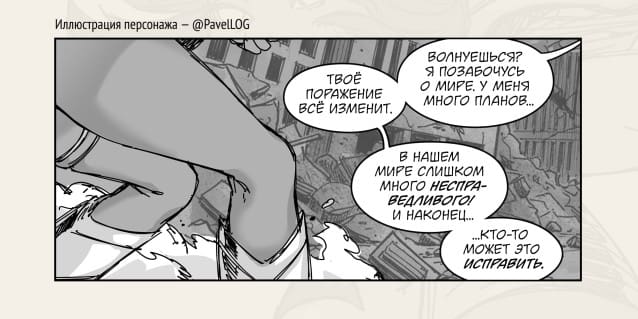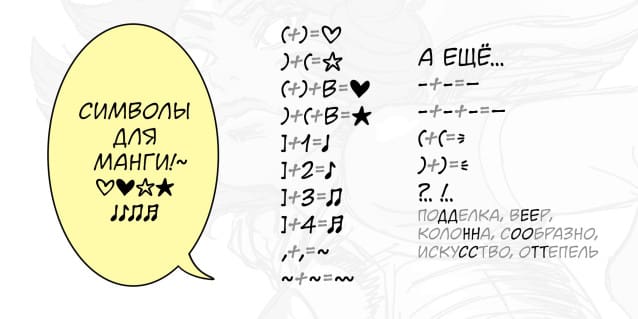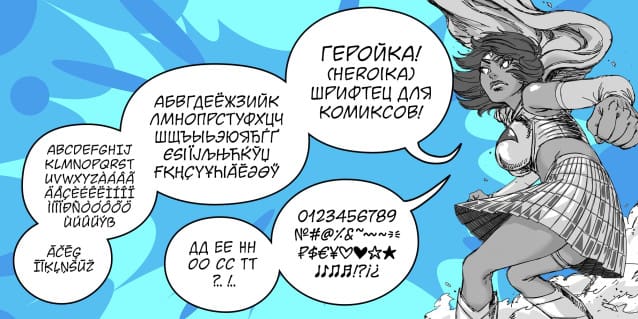
Heroika Font a sweet and friendly handwritten font. Cute and fun, this font is ideal for writing wedding invitations, cards, or any other design that might need a fun touch!
Heroika Font